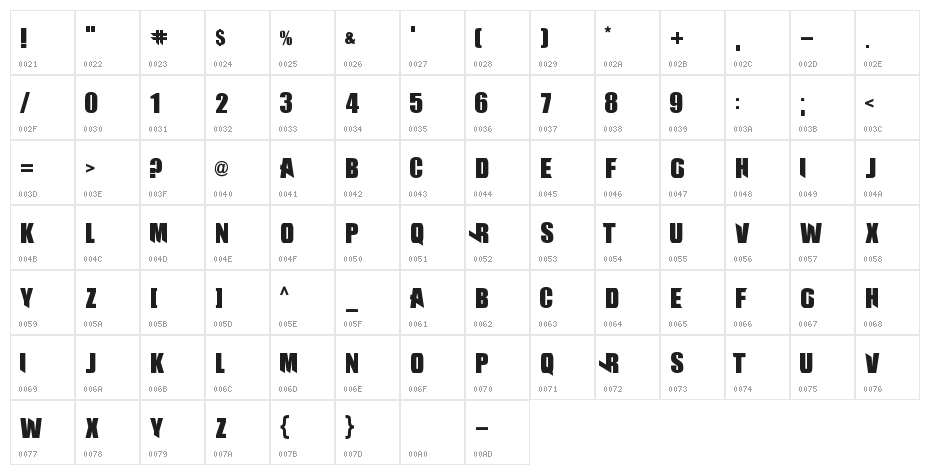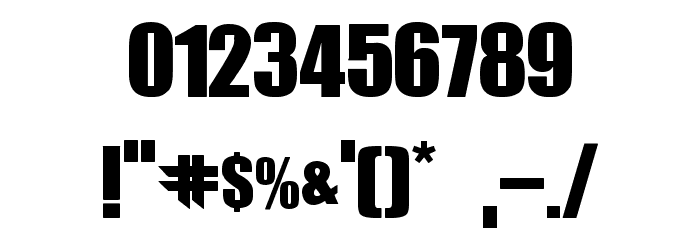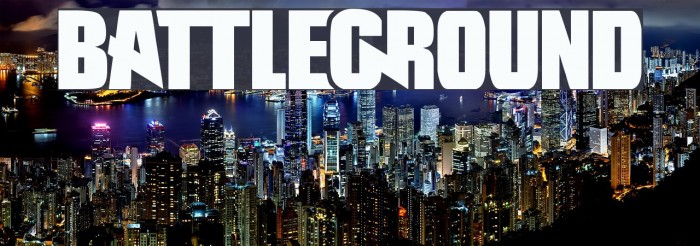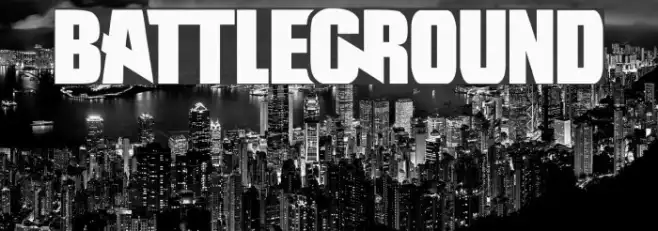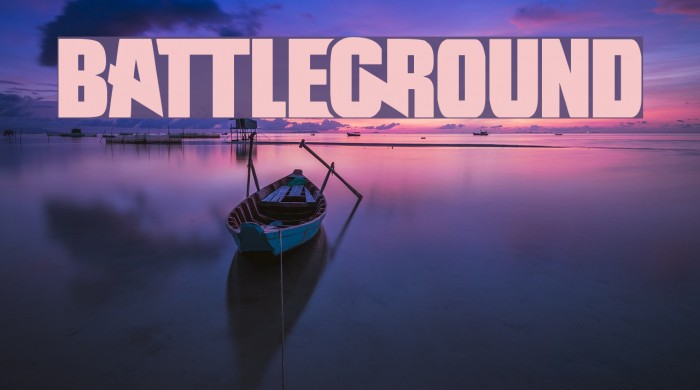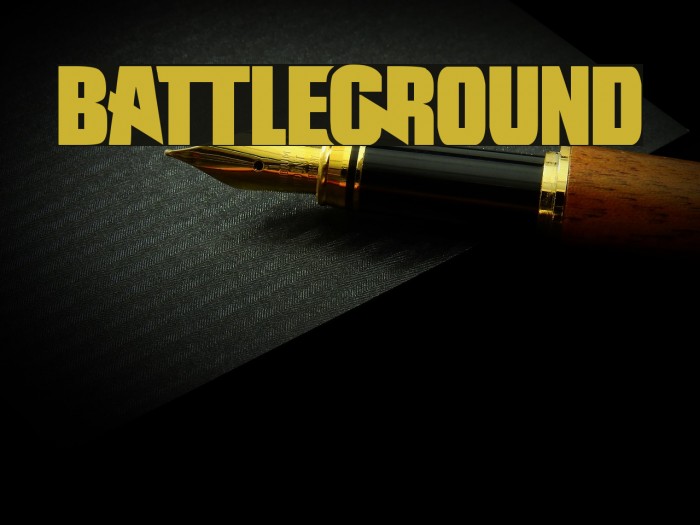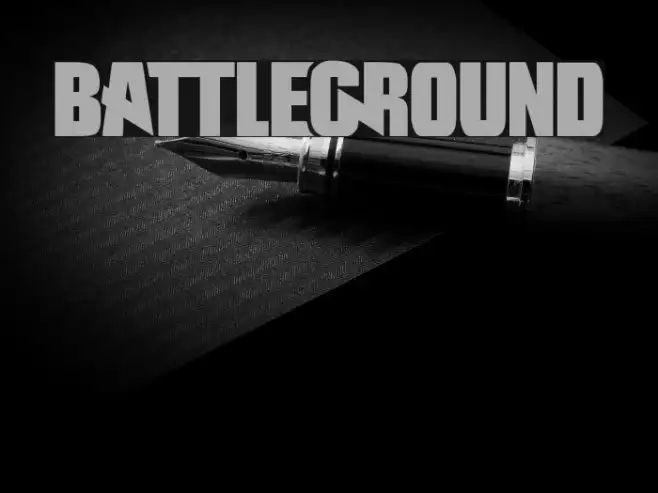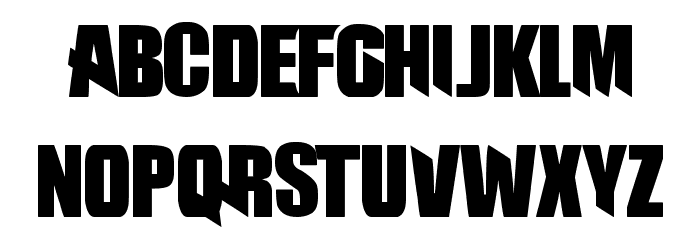
Battleground Font
Battleground Description
This font features a bold and aggressive style with sharp, angular edges that give it a dynamic and impactful appearance. The characters are heavily stylized, with a distinct cut-out effect that adds to its edgy and modern look. The uppercase letters are particularly striking, with a strong presence that demands attention. The numbers and special characters maintain the same boldness and angular design, ensuring consistency across all elements. This font is perfect for projects that require a strong visual impact and a sense of urgency or intensity.
| Proposed Projects | Ideal for video game titles, action movie posters, sports branding, and any project needing a bold, impactful typeface. |